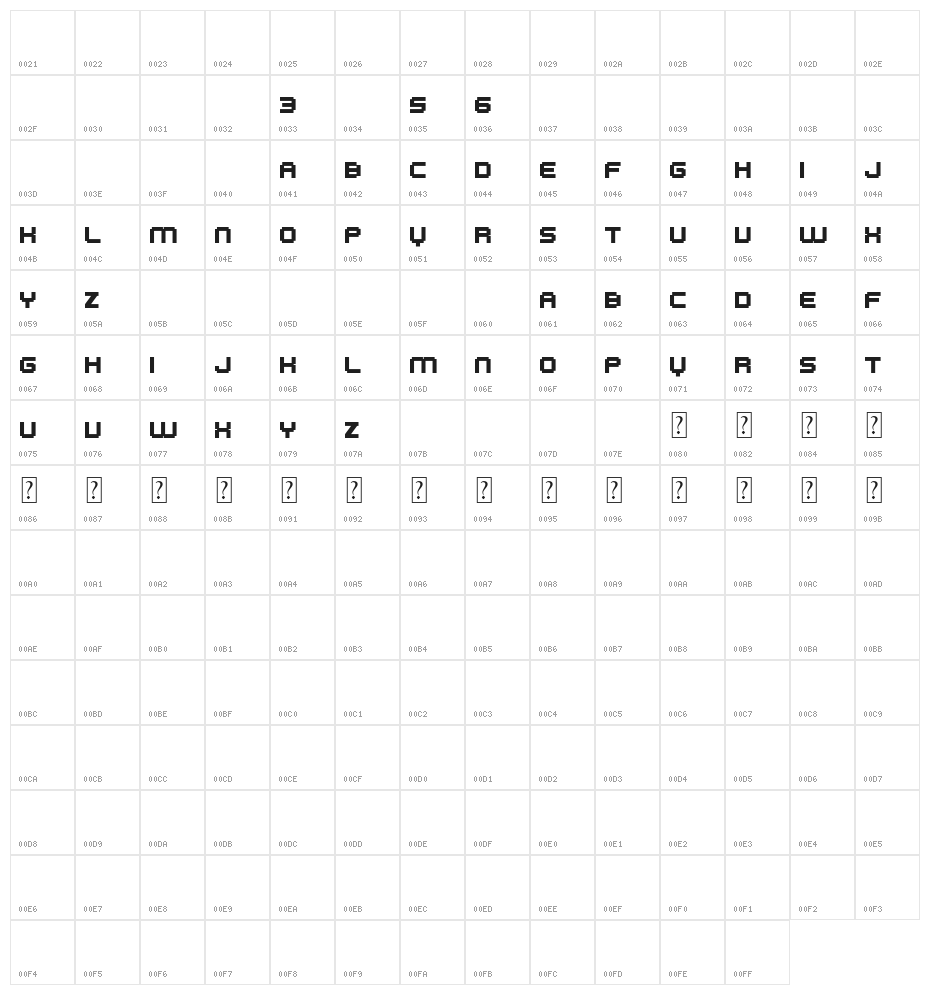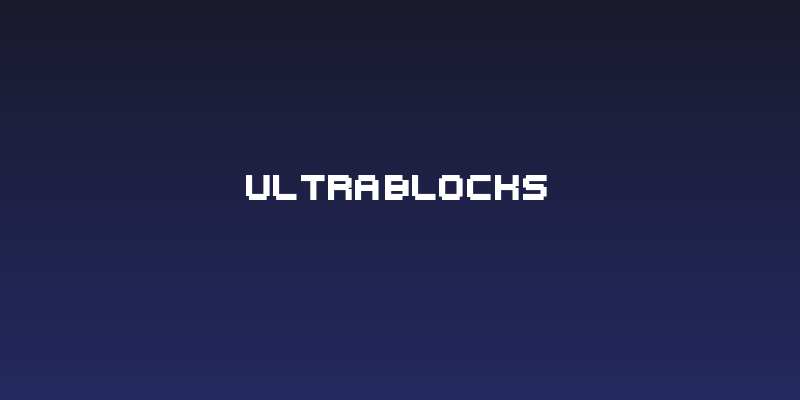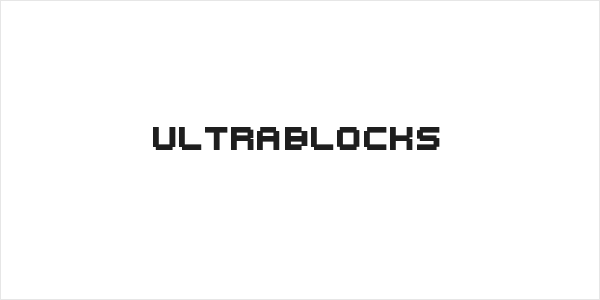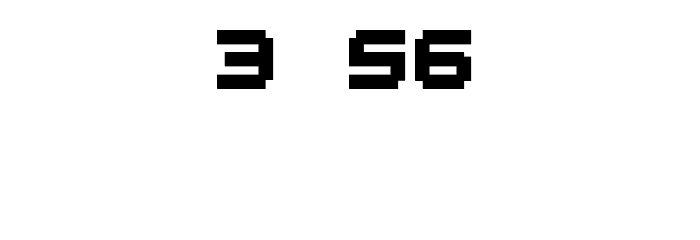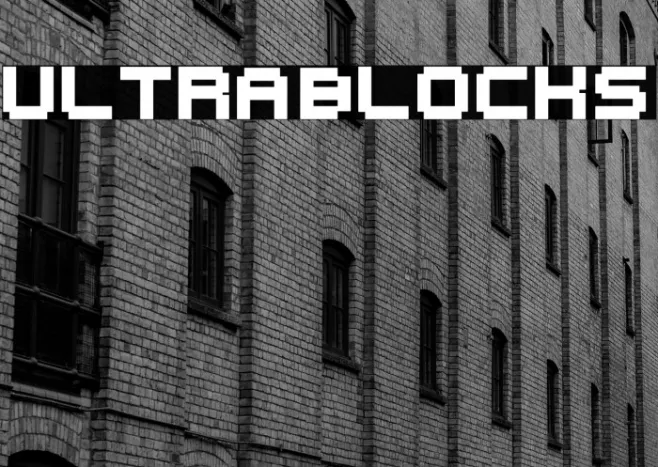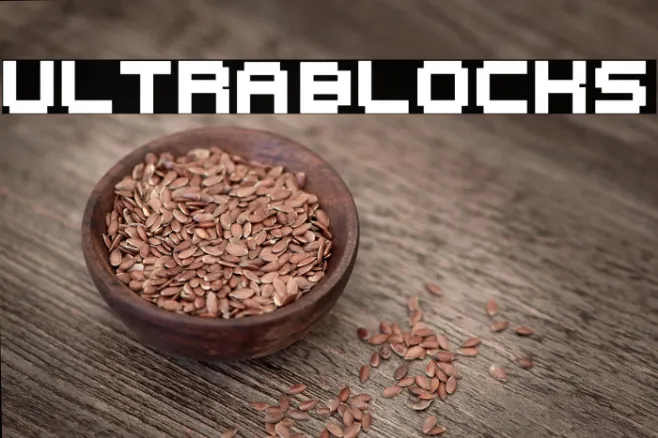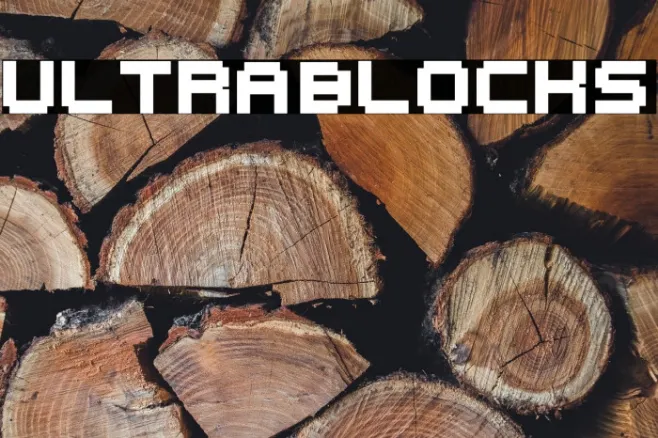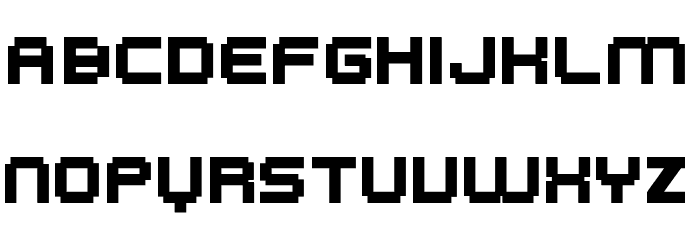
UltraBlocks Font
UltraBlocks Description
This font features a bold, blocky design with a pixelated aesthetic reminiscent of early digital displays and video games. The characters are uniformly structured with sharp, angular corners and consistent line thickness, creating a cohesive and robust appearance. The uppercase and lowercase letters maintain a similar height, enhancing the font's geometric style. The numerals and special characters follow the same design principles, ensuring uniformity across all glyphs. This font's distinct, retro look is ideal for projects that aim to evoke nostalgia or convey a tech-savvy, modern vibe.
| Proposed Projects | Ideal for video game graphics, tech-themed posters, retro-style branding, and digital art projects. |